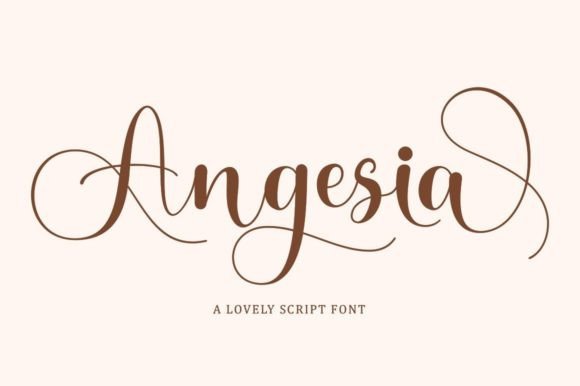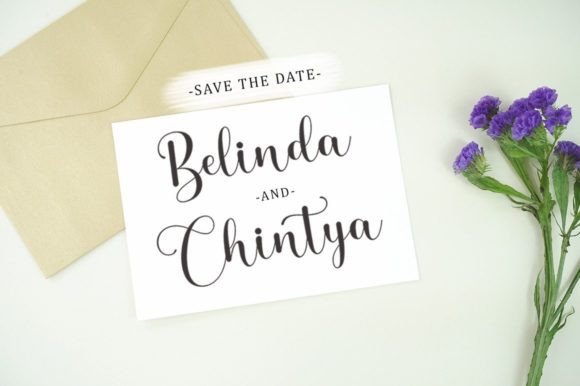
About Angesia Font
Angesia is an incredibly unique handwritten font. Masterfully designed to become a true favorite, this font has the potential to bring each of your creative ideas to the highest level!